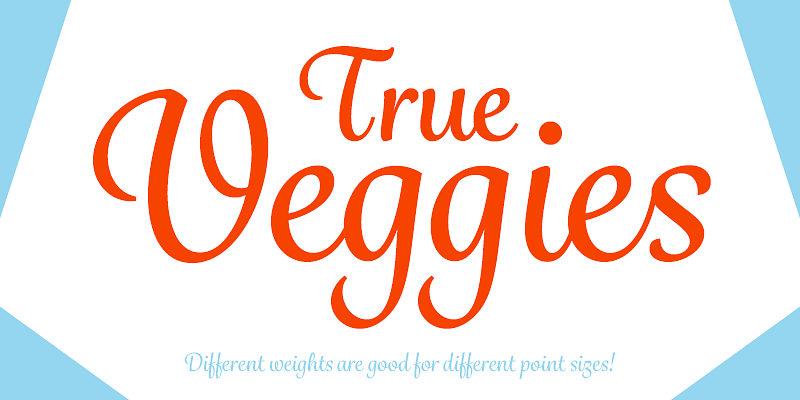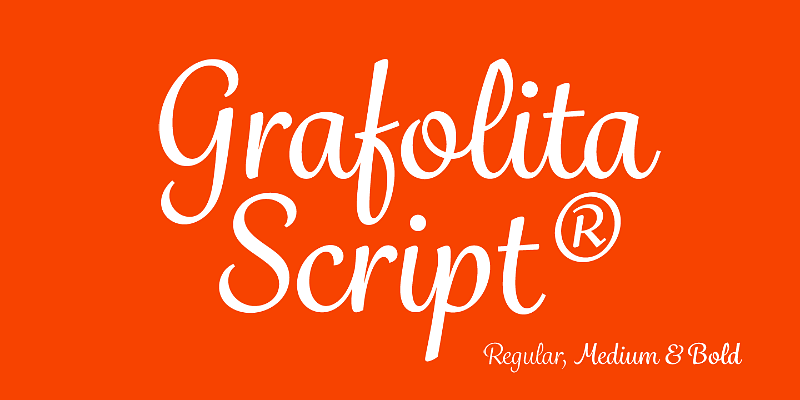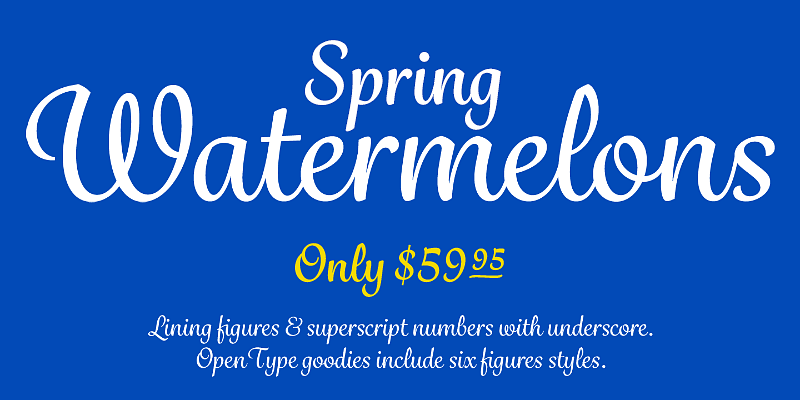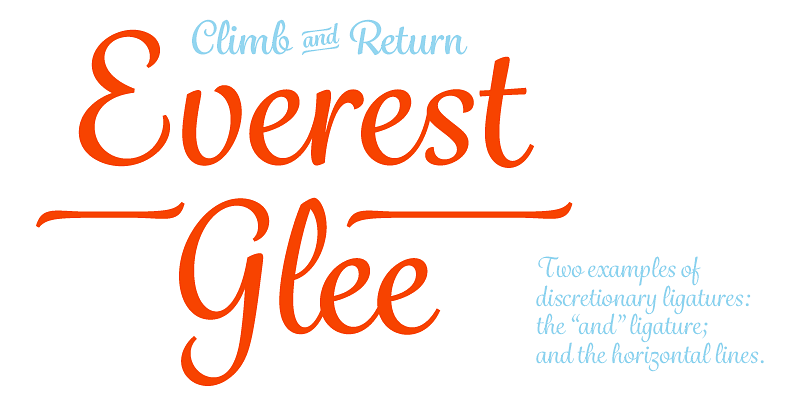
Grafolita is a versatile casual script family of three fonts. The three weights allow designers to balance stroke thickness between different body sizes.
Rui Abreu
Rui Abreu is a Portuguese type and graphic designer. He studied Graphic Design at FBAUP (Faculdade de Belas Artes da Universidade do Porto), where he graduated in 2003.
In parallel with his interactive media designer job, Rui Abreu has been working on commercial fonts since 2006.